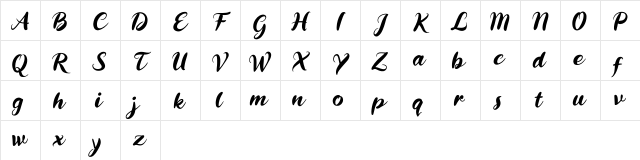
Daddy Rewind is a composed and adaptable typeface that performs quietly and consistently across a wide range of design contexts.
Pro Tip: Use Daddy Rewind in both headline and body roles to test its range before committing to a single application.